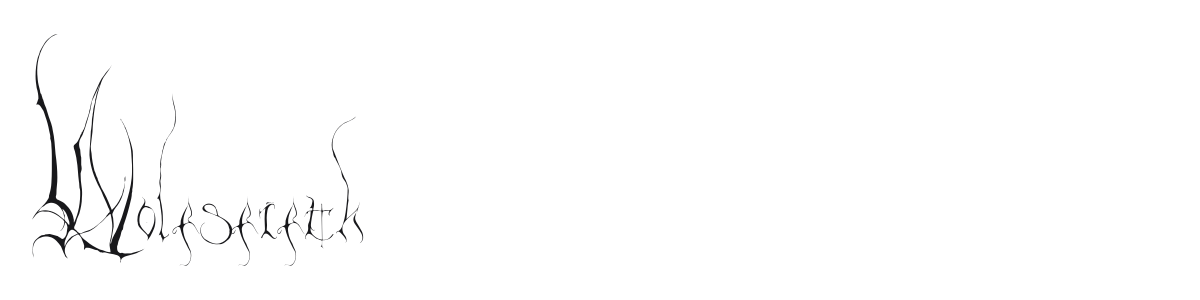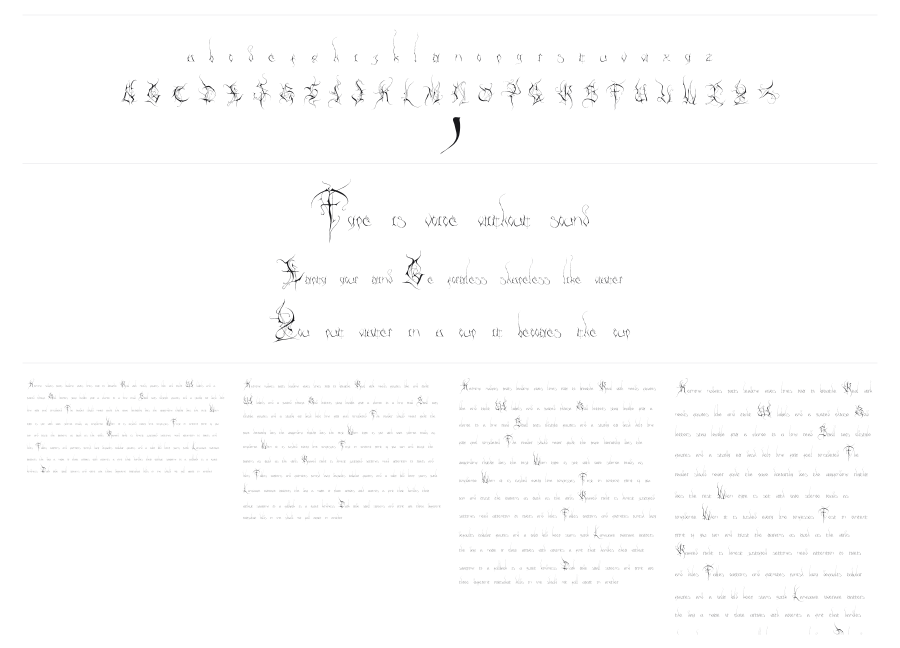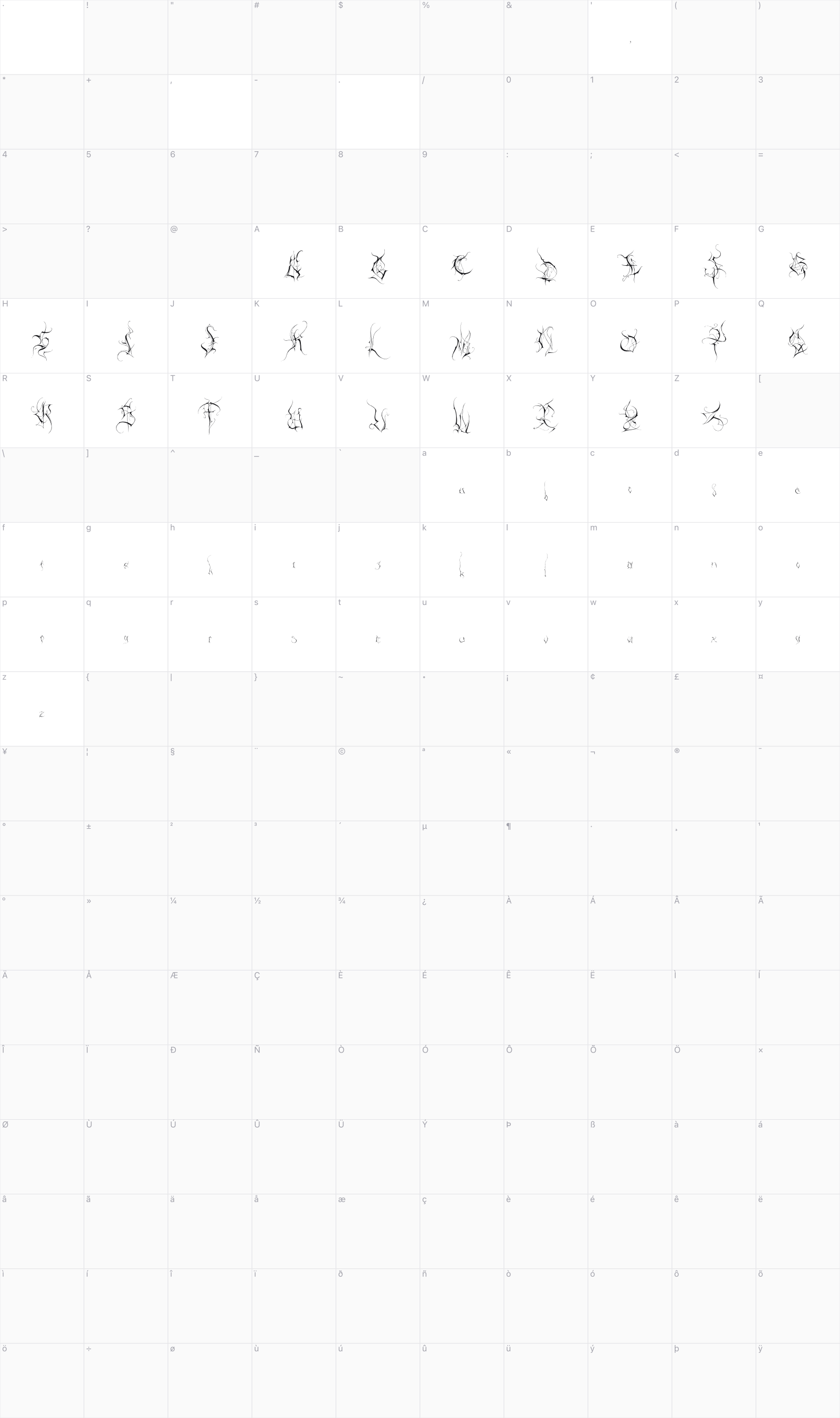
Wolfsfifth
Wolfsfifth is a skeletal gothic calligraphy face built almost entirely from hairline strokes that scratch and trail across the baseline like quill marks on parchment. Its extreme lightness sets it apart from the heavy blackletter tradition, giving it a ghostly, untamed quality. Strong in large-scale title treatments, album art, and anywhere that calls for a dark, hand-made edge.